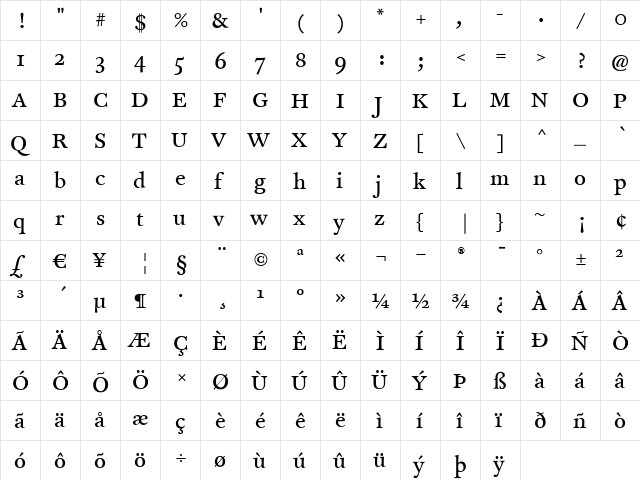
CliffordNine Regular
| Foundry | Akira Kobayashi, . Published by FontShop International. FontFont Release |
Design Context for CliffordNine Typeface
CliffordNine offers clean, dependable letterforms without strong stylistic allegiance, making it a practical choice for designers who need flexibility.